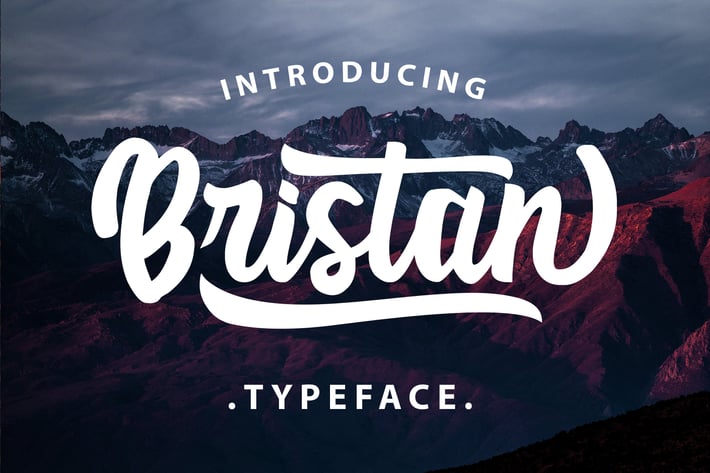
Bristan Typeface
Bristan Typeface is script typeface. Bristan Typeface a beautiful for wedding card design, logotype, website header, fashion design and any more. It contains a full set of lower & uppercase letters, a large range of punctuation, numerals, and multilingual support.
Bonus Swash